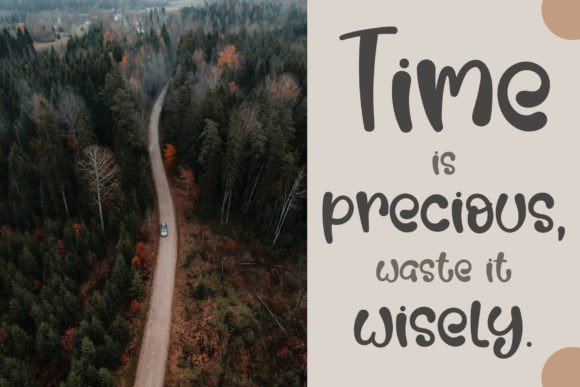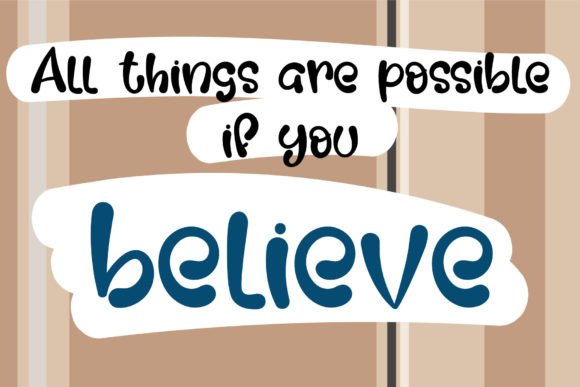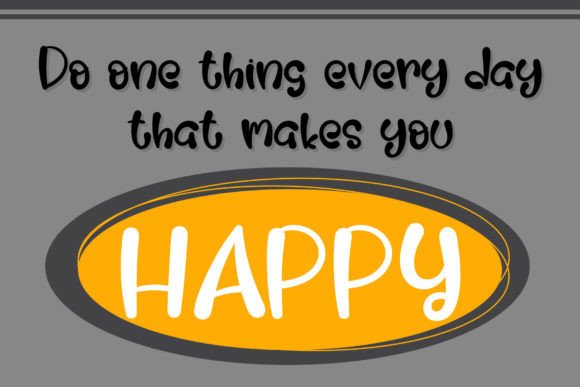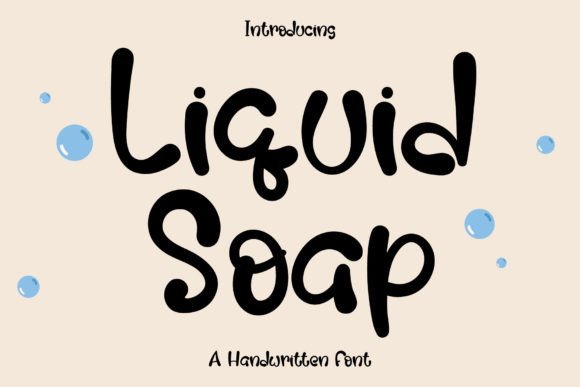
Introduction to Liquid Soap Font
Liquid Soap is a cute and casual handwritten font with an incredibly friendly feel.
Whether you’re looking for fonts for Instagram or calligraphy scripts for DIY projects, this font will turn any creative idea into a true piece of art .
Liquid Soap Font offers exceptional quality and versatility, making it a valuable addition to your design toolkit. Whether you’re creating for personal projects or commercial use, Liquid Soap Font delivers professional results.